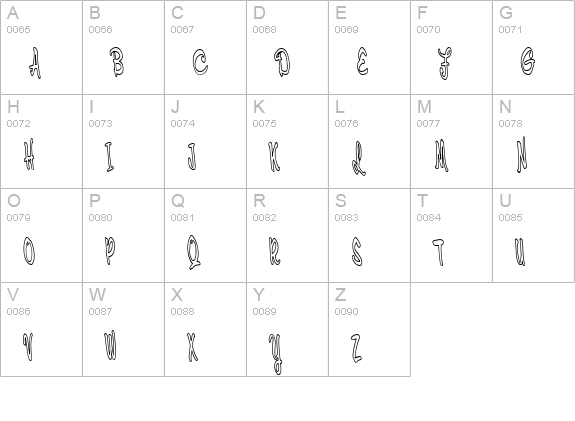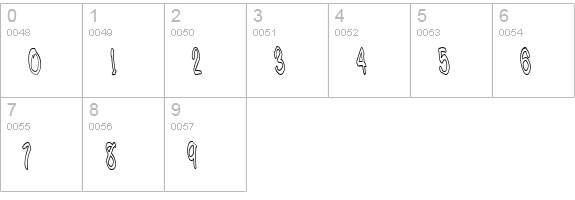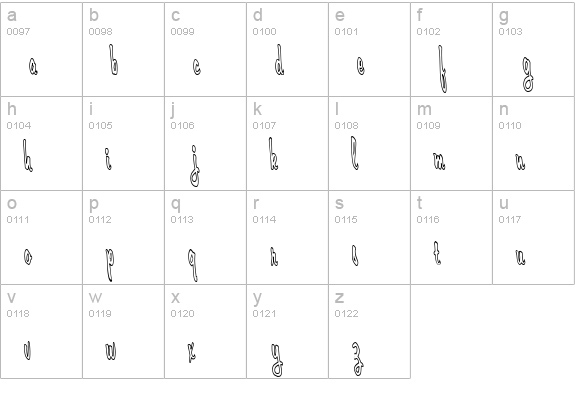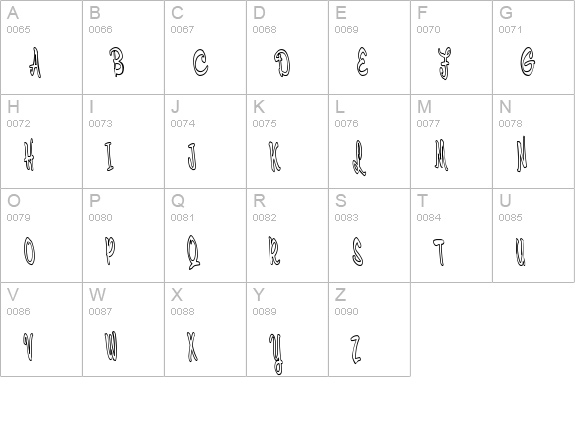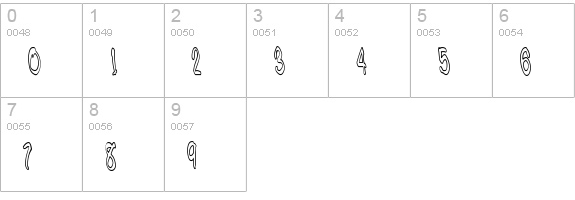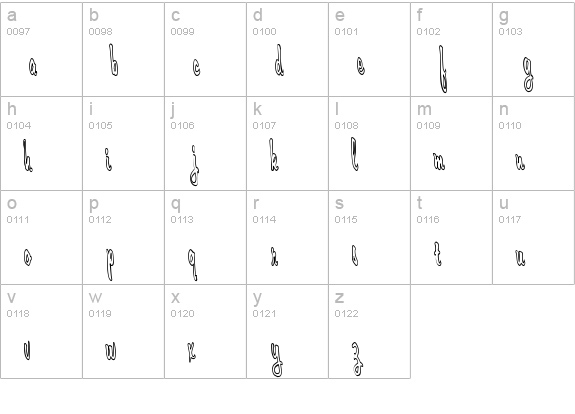
Cerbature Font Details
Introducing Cerbature font, a stunning display typeface that exudes elegance and sophistication. With its unique blend of modern and classic design elements, Cerbature is perfect for adding a touch of luxury to your projects. Crafted with precision and attention to detail, every letter of Cerbature font is a work of art in itself. What sets Cerbature font apart is not only its timeless appeal but also its versatility. Whether you're designing a logo, branding materials, invitations, or any other creative project, Cerbature font will make a statement and leave a lasting impression. And the best part? Cerbature font is completely free to download at FontsMarket.com. Yes, you read that right - you can elevate your designs with this exquisite typeface at no cost at all. So why wait? Enhance your projects with Cerbature font today and let your creativity shine!